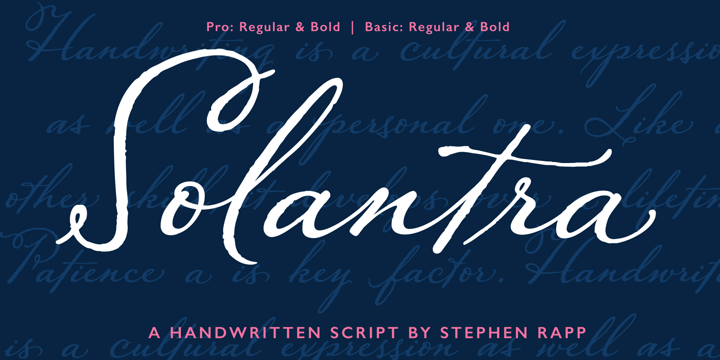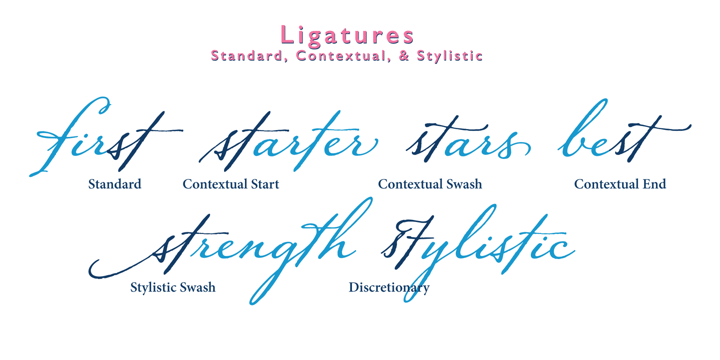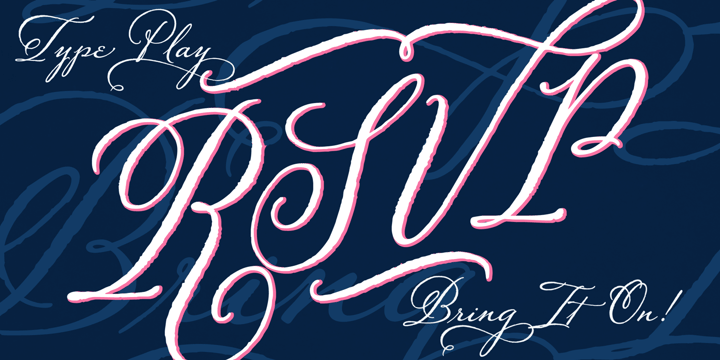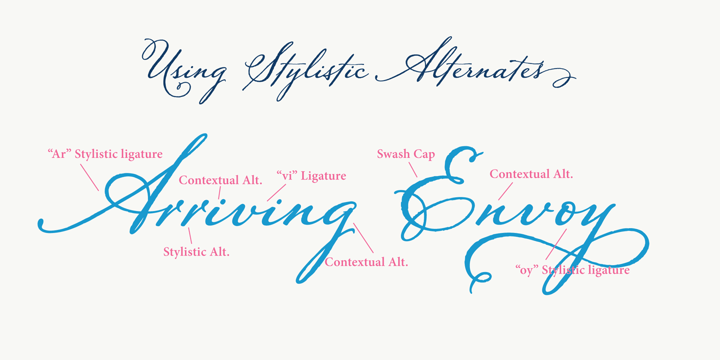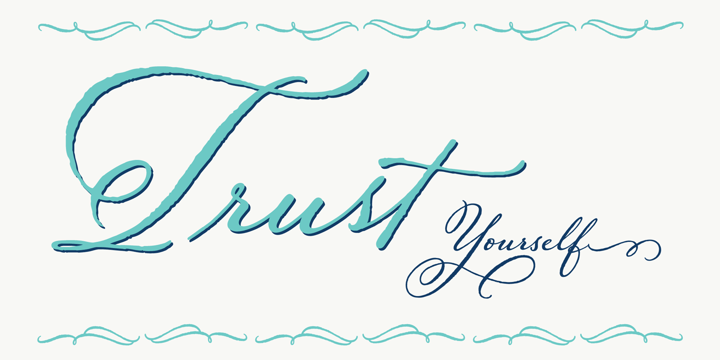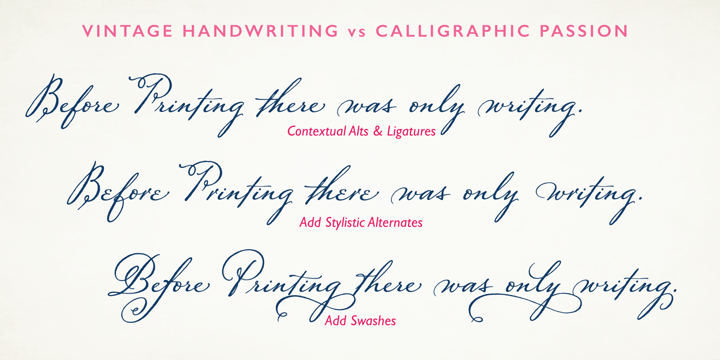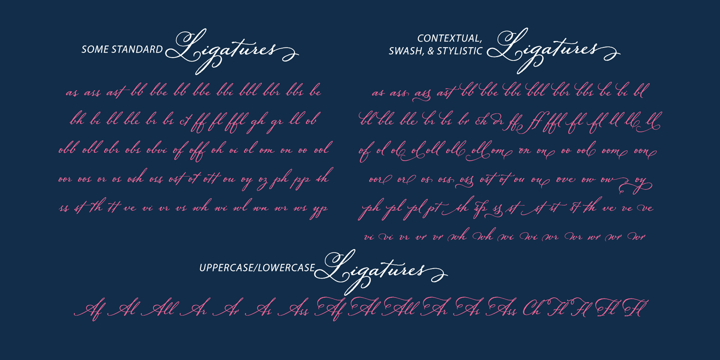
Solantra Pro
Font Family by Stephen Rapp
Solantra is a solidly crafted handwritten script. I've long felt that beautiful writing is more pleasing to the eye than the more attention grabbing swashes and flourishes. That being said, both have their role in design and Solantra has a large slice of each. Solantra combines vintage style handwriting with all its quirks and English Roundhand of that same era. The result is a solid setting script filled with charm and personality.
Solantro takes into account how scripts are actually written so that connections from letter to letter are more fluid and rhythmic than the average script font. In natural script/handwriting most letters end at the bottom right and move up to connect with the next. Some letters like o, v, and w, however; end at the top right. Rather than force these letters to dip down and go back up they should ideally connect from that upper right point. This is accomplished through a series of alternate letters and ligatures with extensive contextual feature programming.